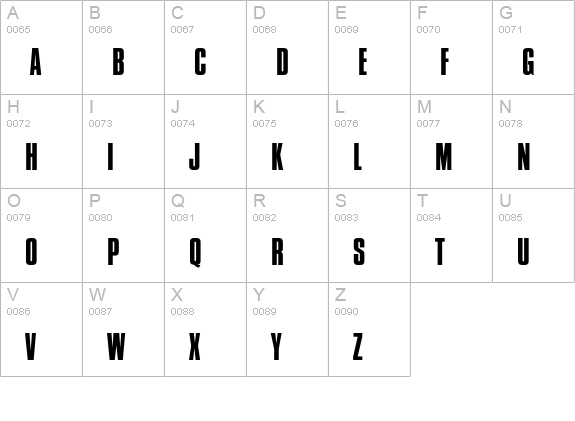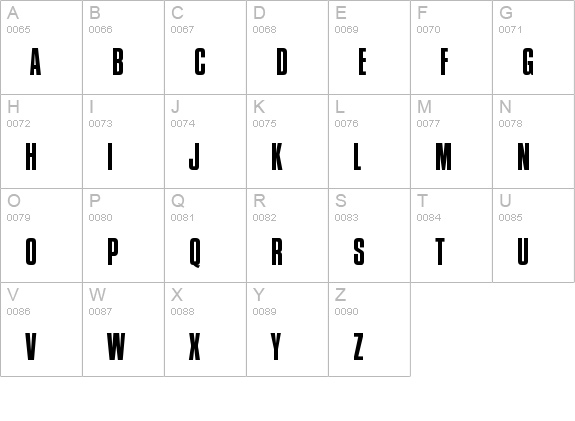
CompactaEF-Regular is the standard, neutral variant in the CompactaEF typeface family \xE2\x80\x94 well suited to general body text, paragraphs, and standard typographic work.
CompactaEF-Regular is a modern and versatile font that combines sleek lines with a touch of sophistication. Its clean and compact design makes it perfect for a wide range of projects, from branding to editorial design. The font features a balanced mix of sharp angles and smooth curves, creating a dynamic and eye-catching appearance. What sets CompactaEF-Regular apart is not only its striking aesthetic but also its accessibility. This font is available for free download at FontsMarket.com, allowing designers and creatives to easily incorporate it into their work without any cost barriers. Whether you're working on a print design, digital project, or any other creative endeavor, CompactaEF-Regular offers a stylish and contemporary option that is sure to elevate your work. Download it today and unleash the full potential of this versatile font.